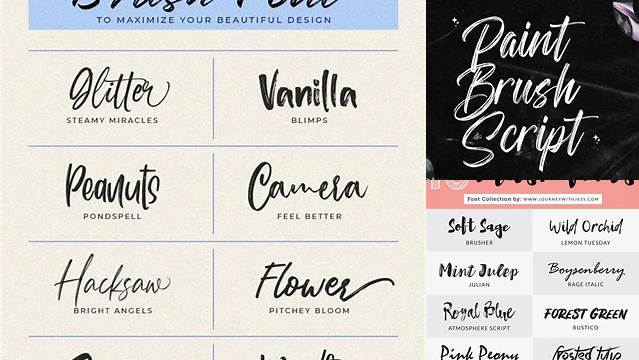
Free Brush Script Fonts: Download & Create Stunning Designs
Brush script fonts, guys, are like the rockstars of the font world â they're bold, expressive, and full of personality. If you're looking to add a touch of handcrafted elegance or a splash of playful energy to your designs, then diving into the world of free brush script fonts is a must. In this article, we'll explore a treasure trove of these fonts, uncovering their unique characteristics and how you can use them to elevate your projects. Whether you're a seasoned designer or just starting, get ready to discover some amazing typefaces that will transform your creative vision into reality.
Why Choose Brush Script Fonts?
Brush script fonts stand out because they mimic the look of actual brushstrokes, giving your text a natural, hand-lettered feel. Unlike standard digital fonts that can sometimes feel sterile, brush scripts inject warmth and authenticity into your designs. Think about it: a wedding invitation with a delicate brush script, a logo that exudes artistic flair, or a website header that grabs attention with its dynamic strokes. The possibilities are endless! Brush script fonts are incredibly versatile, fitting seamlessly into various projects. They are perfect for branding, logos, headlines, posters, social media graphics, and even merchandise. Their unique texture and flow can make your work stand out in a sea of generic typography.
When you choose a brush script font, you're not just picking a typeface; you're selecting a mood and an aesthetic. A bold, rough brush script can convey a sense of edginess and energy, while a delicate, flowing script might evoke romance and sophistication. The right brush script can instantly communicate the personality of your brand or the theme of your project. Plus, using a brush script font can save you time and effort. Instead of hand-lettering every design, you can achieve a similar look with a font that's ready to use. This is especially helpful when you need to create multiple designs quickly without sacrificing that personal, handcrafted touch.
Top Free Brush Script Fonts You Need to Know
Alright, let's dive into some of the best free brush script fonts out there. These fonts are all available for free (though always double-check the license for commercial use!), and they each bring something unique to the table:
Besom: Besom is a bold and energetic brush script that's perfect for making a statement. Its thick strokes and rough edges give it a raw, unfiltered feel, making it ideal for posters, logos, and anything that needs a bit of attitude. This font is excellent for projects that require an impactful, hand-drawn aesthetic.
Debby: Debby has a more relaxed and casual vibe. Its uneven baseline and slightly imperfect strokes give it a charming, approachable feel. Use Debby for social media graphics, blog headers, or invitations where you want to convey a sense of warmth and authenticity.
Salted Mocha: If you're looking for something with a bit of elegance, Salted Mocha is a great choice. Its flowing curves and delicate strokes create a sophisticated look that's perfect for wedding invitations, logos, and branding projects. The contrast between thick and thin strokes adds visual interest and makes it stand out.
āĻŖā§āϝāĻŧ āϞā§āĻāĻžāϰ Brush: For a playful and whimsical touch, check out āĻŖā§āϝāĻŧ āϞā§āĻāĻžāϰ Brush. This font is full of personality, with quirky letterforms and a bouncy baseline. It's perfect for children's books, fun social media content, or anything that needs a dose of lightheartedness. This unique style makes your designs memorable and engaging.
** āĻā§āϝāĻžāύā§āϞ⧠āĻāĻŋāĻāĻŋāĻ āĻāϰā§āύ Brush**: āĻā§āϝāĻžāύā§āϞ⧠āĻāĻŋāĻāĻŋāĻ āĻāϰā§āύ Brush is a bold and dynamic brush script that demands attention. Its strong, confident strokes make it ideal for headlines, posters, and anything that needs to grab the viewer's eye. Its edgy feel can add a modern twist to your designs.
These are just a few examples, but there are countless other free brush script fonts out there waiting to be discovered. Each font has its own unique personality, so experiment and find the ones that best suit your style and project needs.
How to Use Brush Script Fonts Effectively
Using brush script fonts effectively, guys, is all about striking the right balance. While they're fantastic for adding personality and flair, overusing them can make your designs look cluttered or overwhelming. Here are some tips to help you make the most of brush script fonts:
Pair them with simple sans-serif fonts: Brush scripts look great when paired with clean, easy-to-read sans-serif fonts. This contrast creates visual interest and ensures that your message remains clear. For example, use a brush script for your headline and a sans-serif font for the body text.
Use them sparingly: A little brush script goes a long way. Don't use it for large blocks of text, as it can be difficult to read. Instead, use it for headlines, logos, or short quotes.
Consider the context: Think about the overall tone and style of your design. Does the brush script match the message you're trying to convey? A rough, edgy brush script might not be the best choice for a formal invitation, while a delicate, flowing script might not be suitable for a rock concert poster.
Pay attention to spacing: Brush script fonts often have unique spacing requirements. Adjust the letter spacing and line height to ensure that the text is legible and visually appealing. Sometimes, a little tweaking can make a big difference.
Free brush script fonts are a fantastic resource for designers of all levels. They offer a quick and easy way to add personality, flair, and a handcrafted feel to your projects. Whether you're creating a logo, designing a poster, or crafting social media graphics, a brush script font can help you stand out from the crowd.